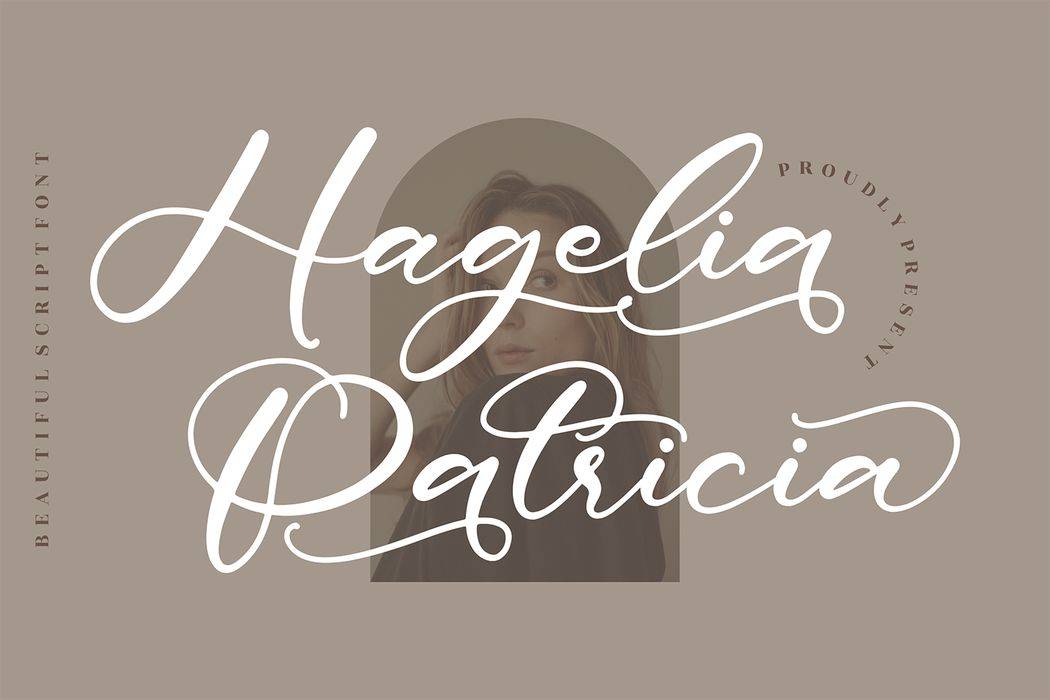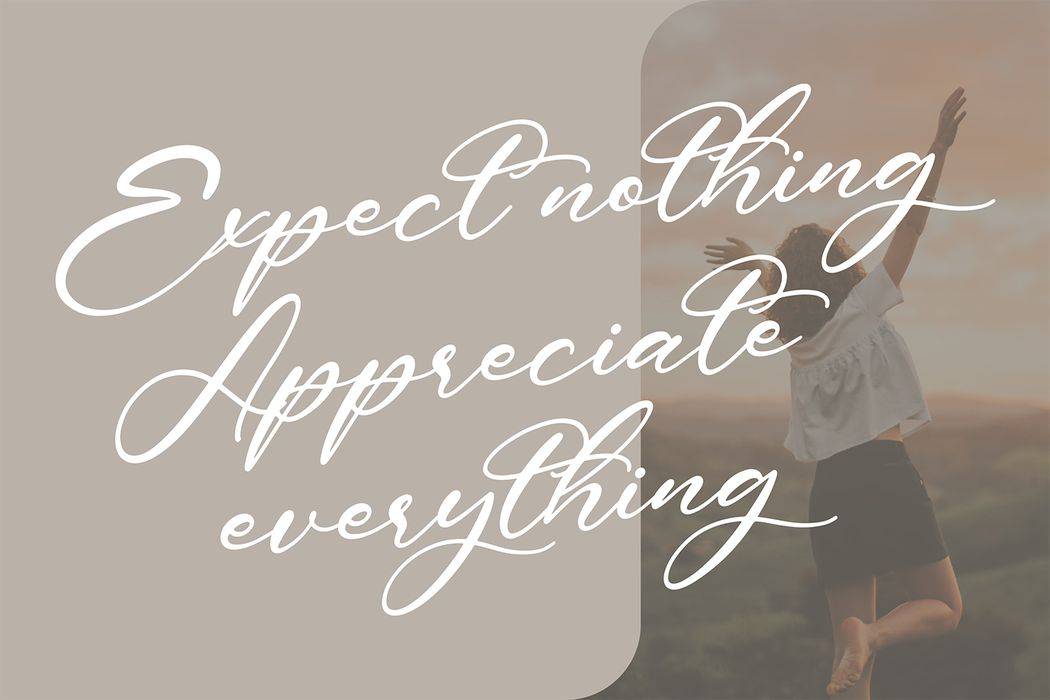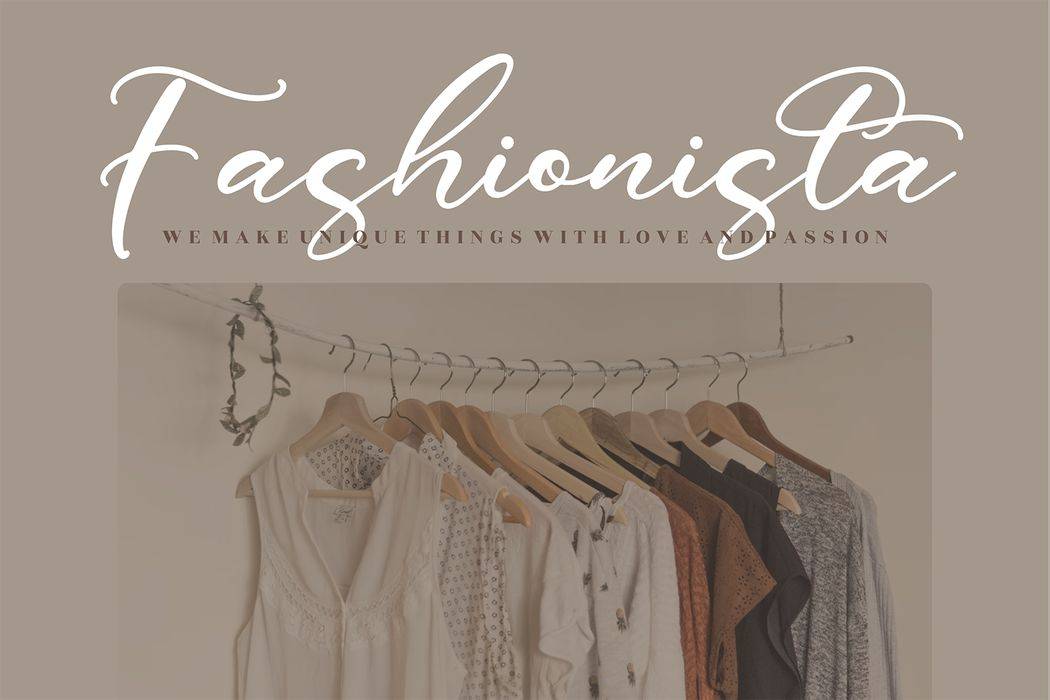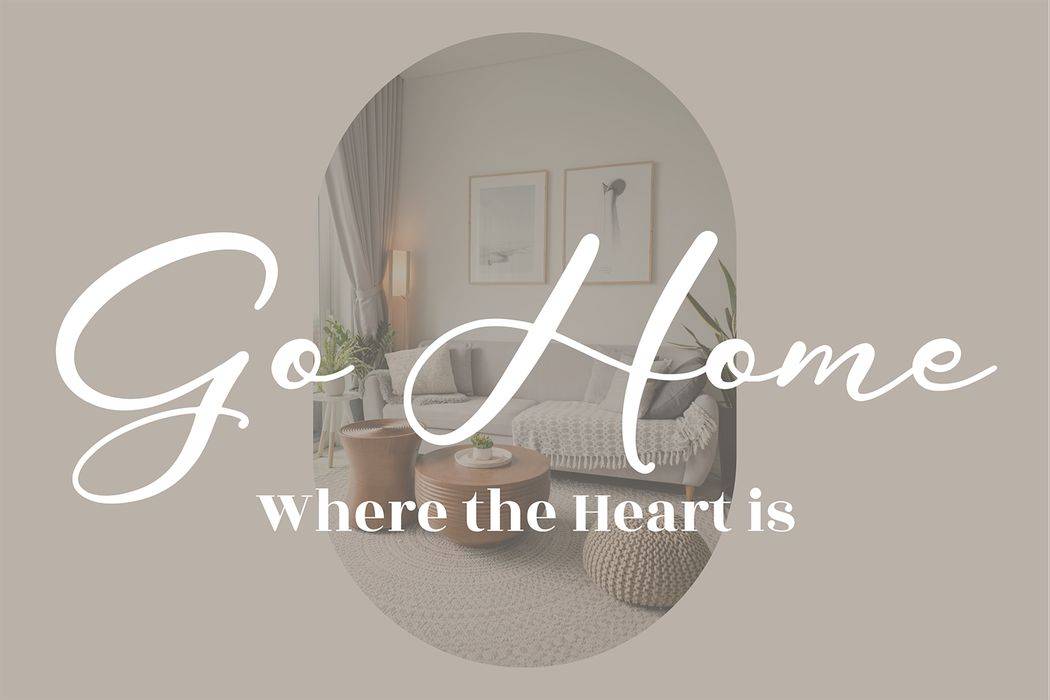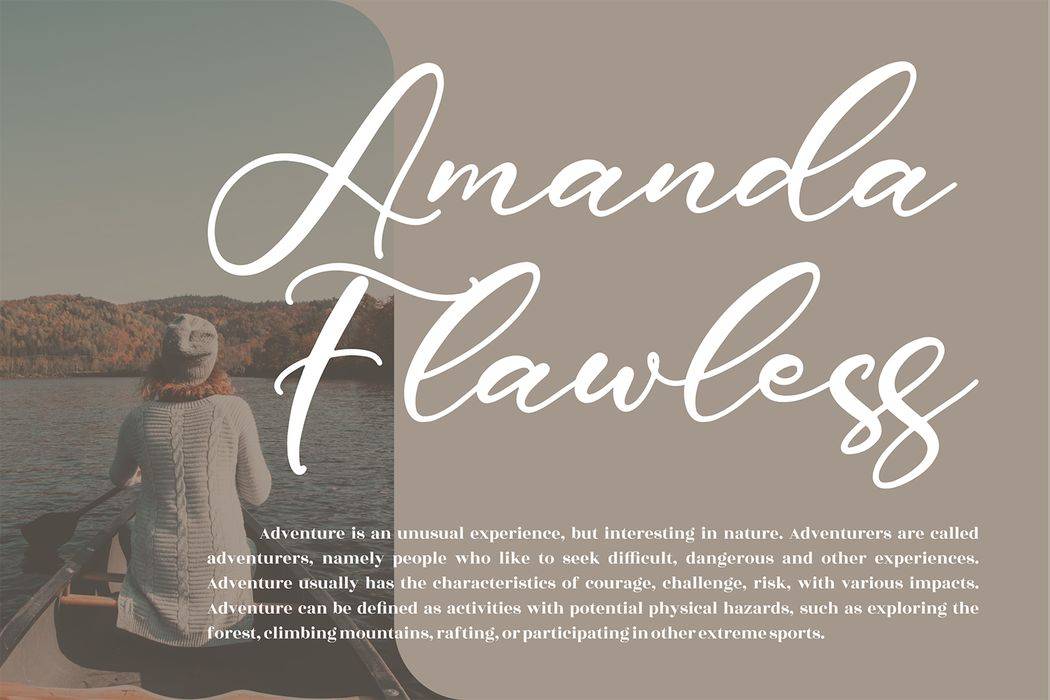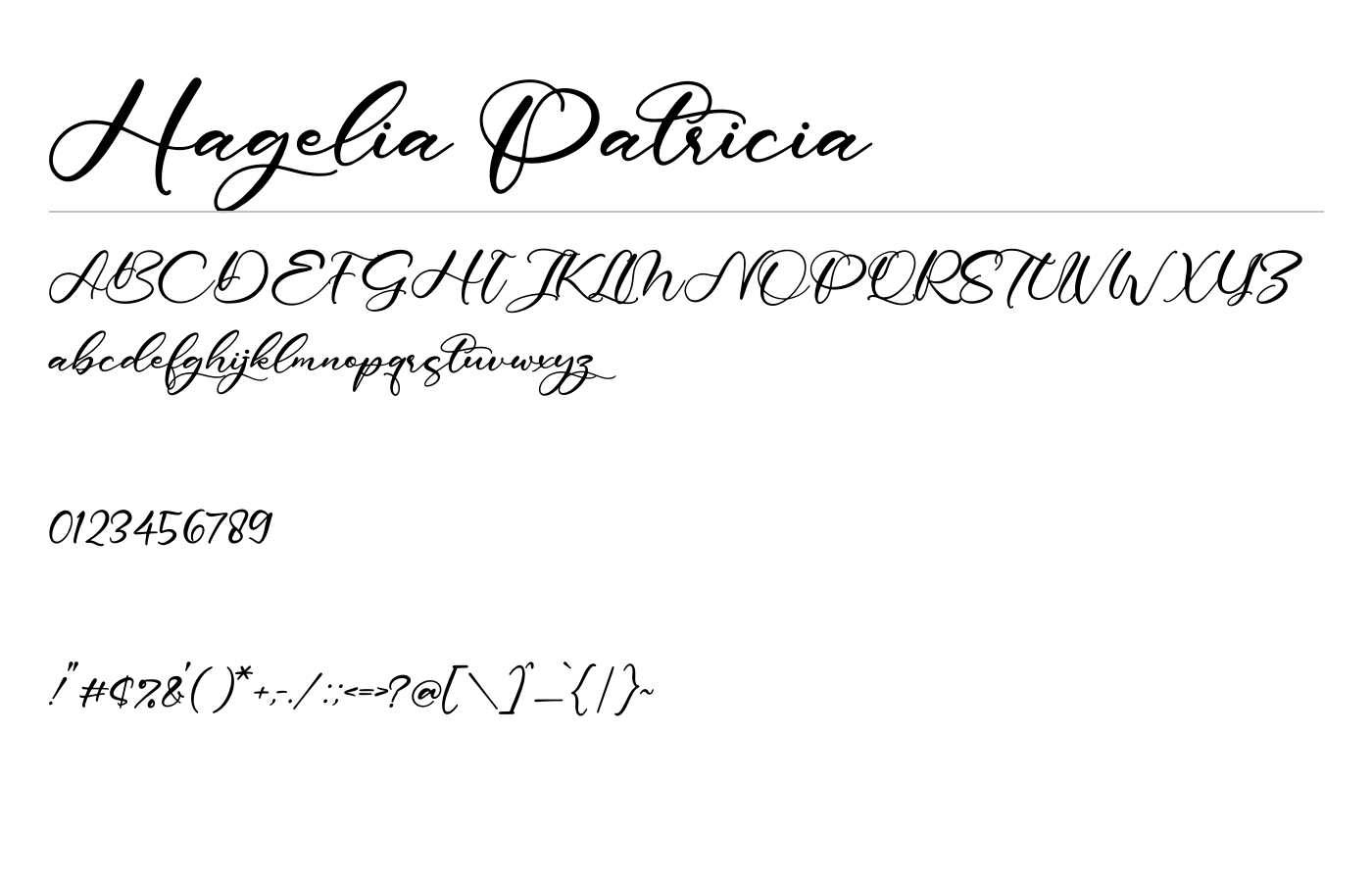
Hagelia Patricia is an elegant script font characterized by delicate, flowing strokes and a graceful handwritten style. Its refined letterforms with smooth curves and a high contrast between thin and thicker lines make it perfect for sophisticated, feminine branding, wedding invitations, and luxury packaging. The font's airy, decorative feel lends itself well to headlines and logos where a touch of charm and personality is desired.
Hagelia Patricia Font
About Hagelia Patricia Font